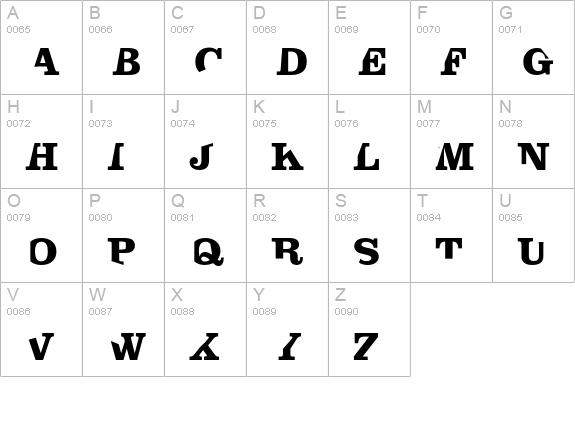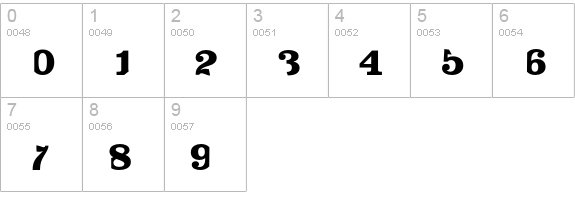
AmericanAnalogSet Font Details
AmericanAnalogSet font is a versatile and modern typeface that combines classic elegance with a contemporary twist. With its sleek lines and stylish curves, this font is perfect for a wide range of design projects, from branding and advertising to web design and social media graphics. The unique character of AmericanAnalogSet font will make your text stand out and leave a lasting impression on your audience. Best of all, AmericanAnalogSet font is completely free and available for download at FontsMarket.com. This means you can use this high-quality font in your projects without any additional cost, making it a valuable resource for designers and creatives looking to enhance their work with a touch of sophistication and style. Download AmericanAnalogSet font today and elevate your designs to new heights!